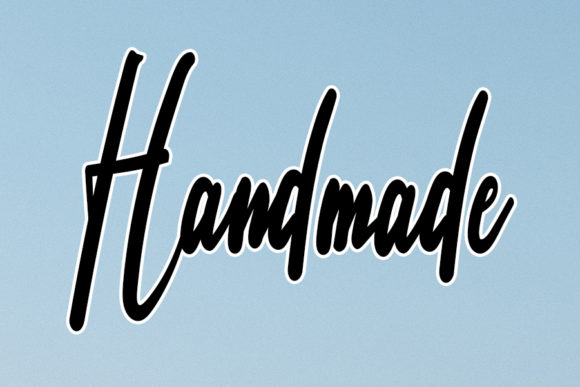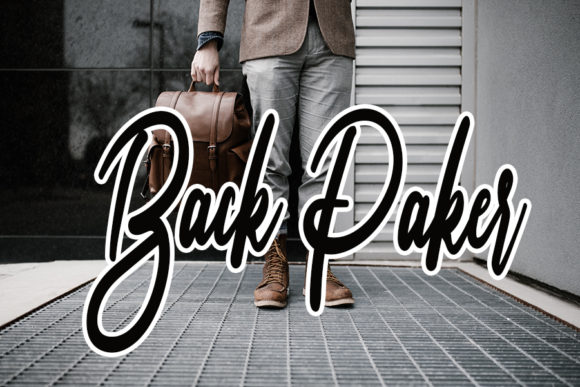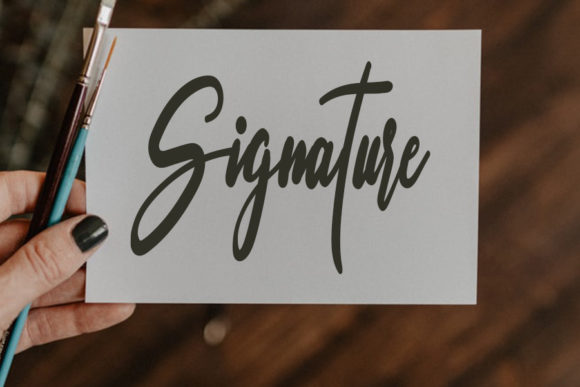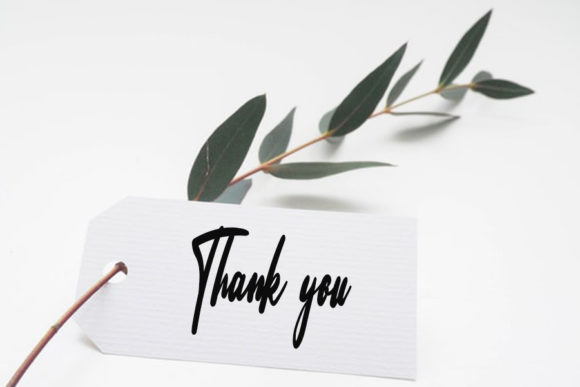
Introduction to Katenna Journey Font
Katenna Journey is a dainty and sweet handwritten font.
Simple and flowing, this friend is readable, down to earth and incredibly versatile .
Katenna Journey Font offers exceptional quality and versatility, making it a valuable addition to your design toolkit. Whether you’re creating for personal projects or commercial use, Katenna Journey Font delivers professional results.